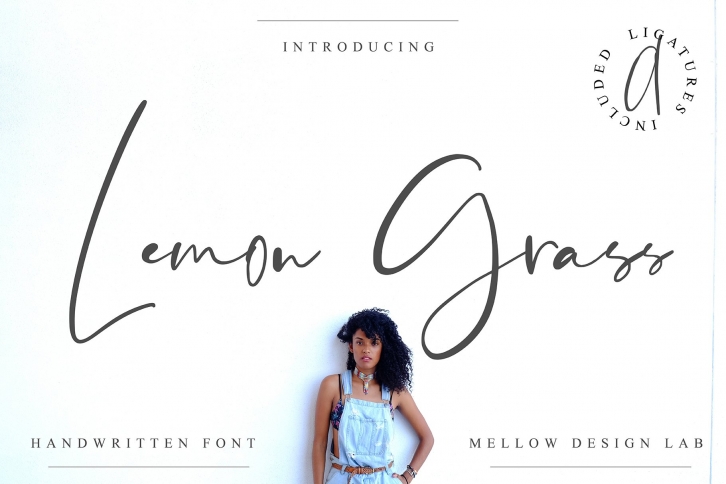
Introducing the lovely new Lemon Grass Script
This font is especially for you if you need to add tenderness to your project. A font that looks absolutely handwritten and created by hand. Special attention to the double letters, because at the expense of them the font looks more natural and authentically (aa, bb, cc, dd, ee, ff, gg, ll, mm, nn, oo, pp, rr, ss, tt). Combine it with other fonts and add style in your project. This handwritten font is ideal for branding and decorate your any project.
This font are perfect for wedding invitation or your blog. Also with their help, you can create a logo or beautiful frame for your home. Or just use for your small business, book covers, stationery, marketing, magazines and more.